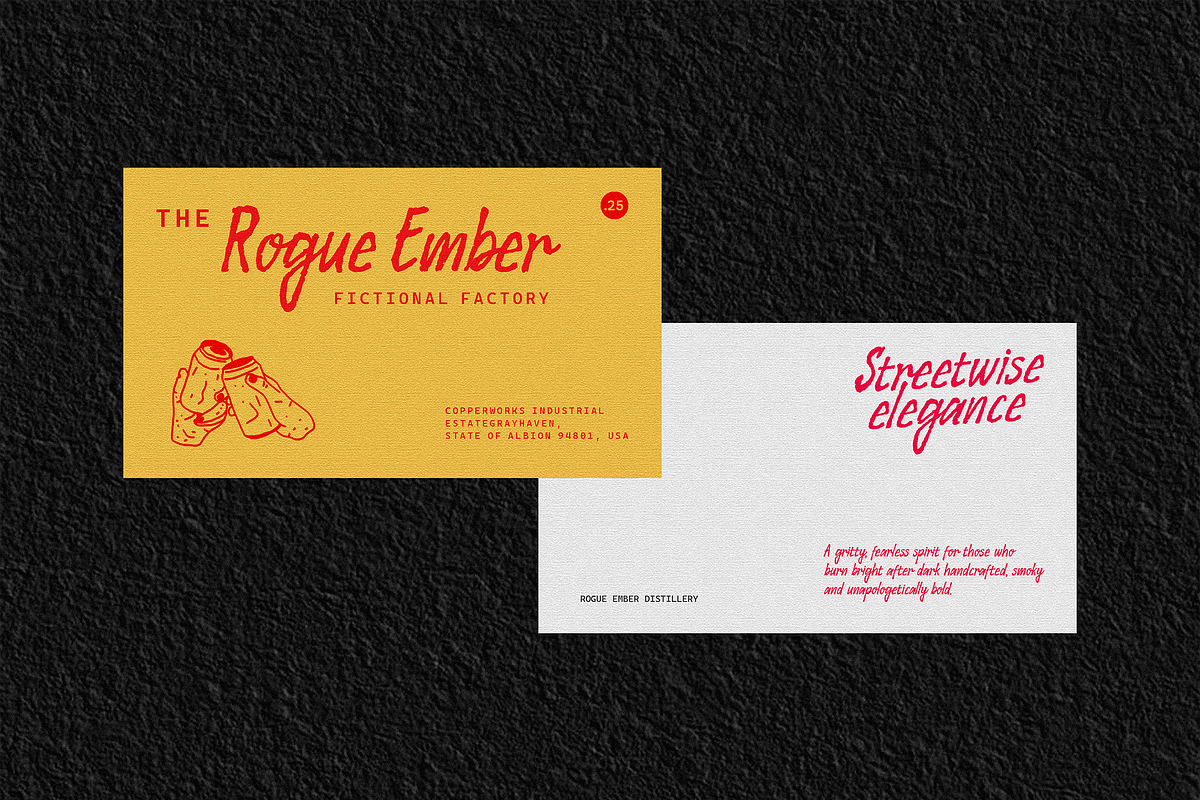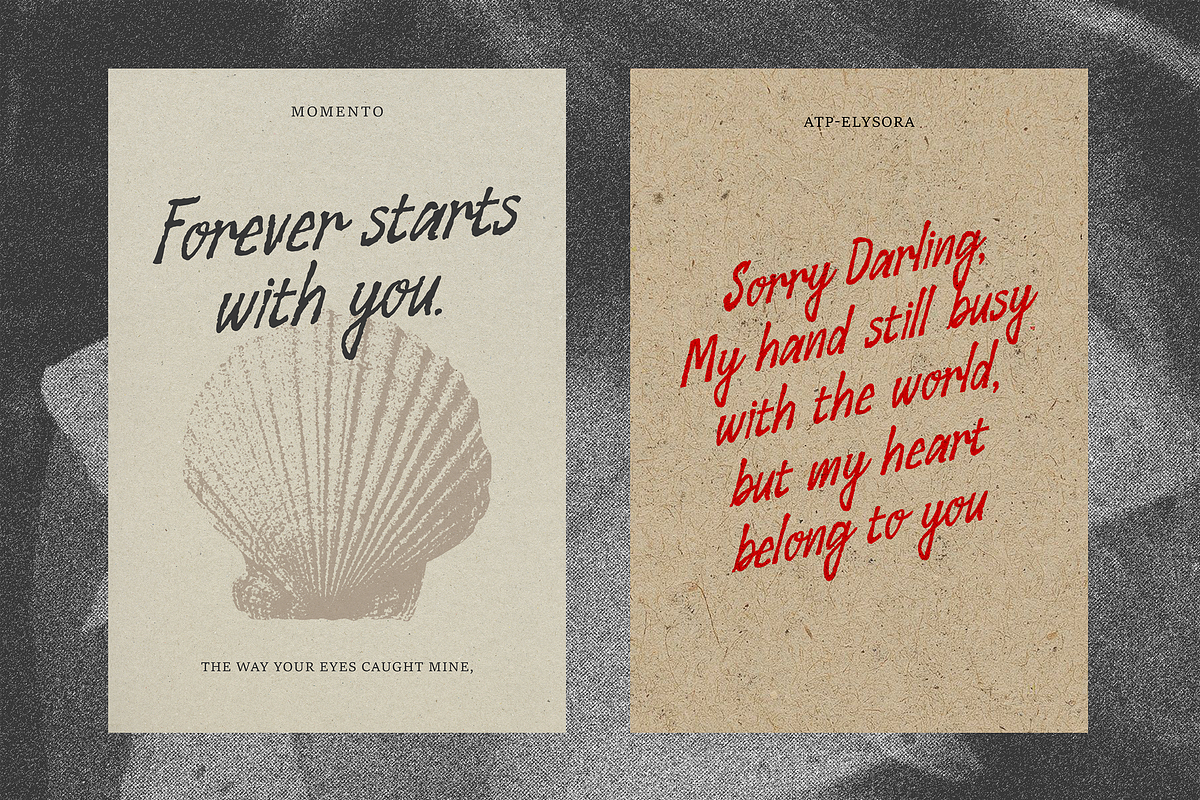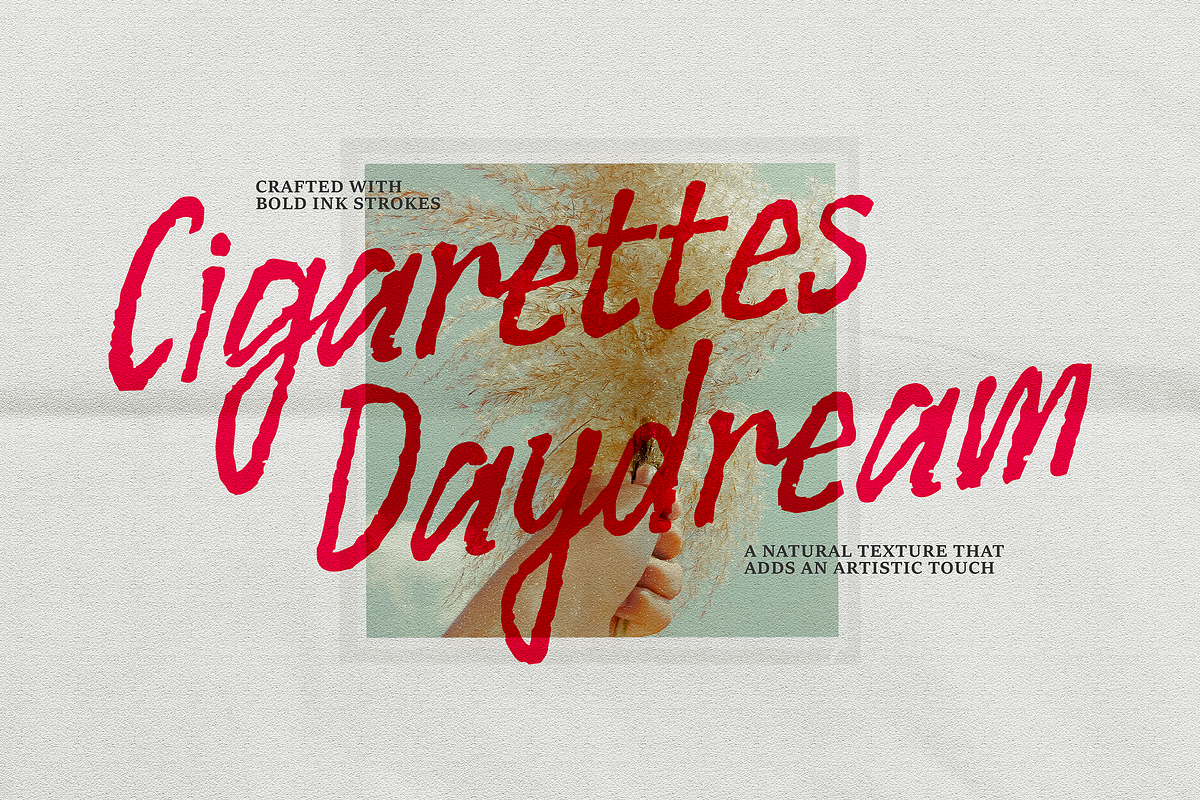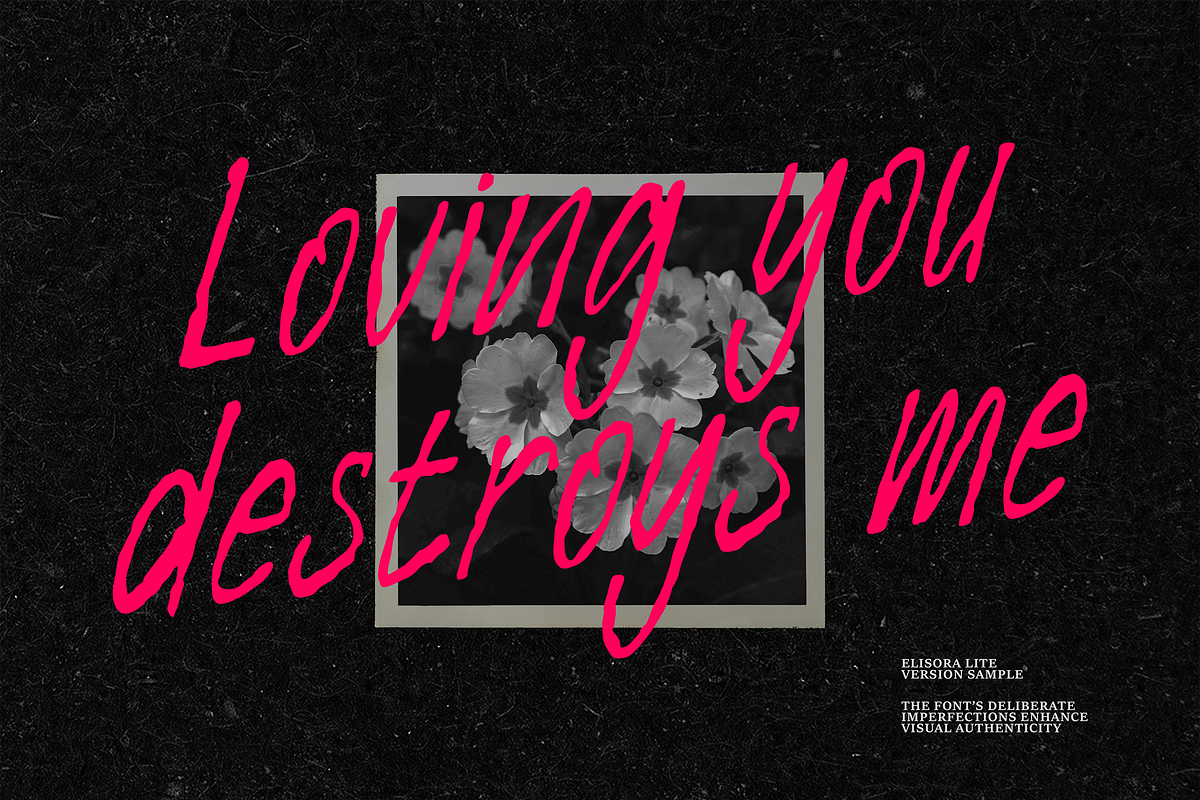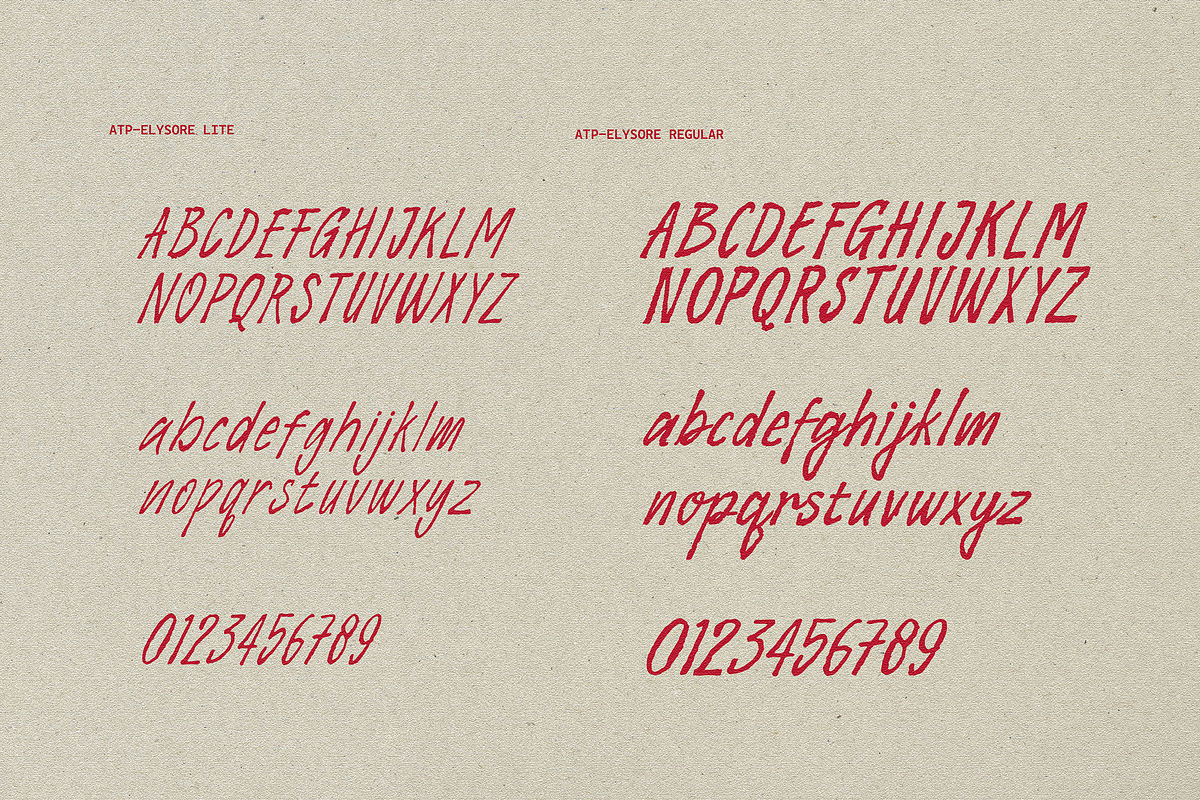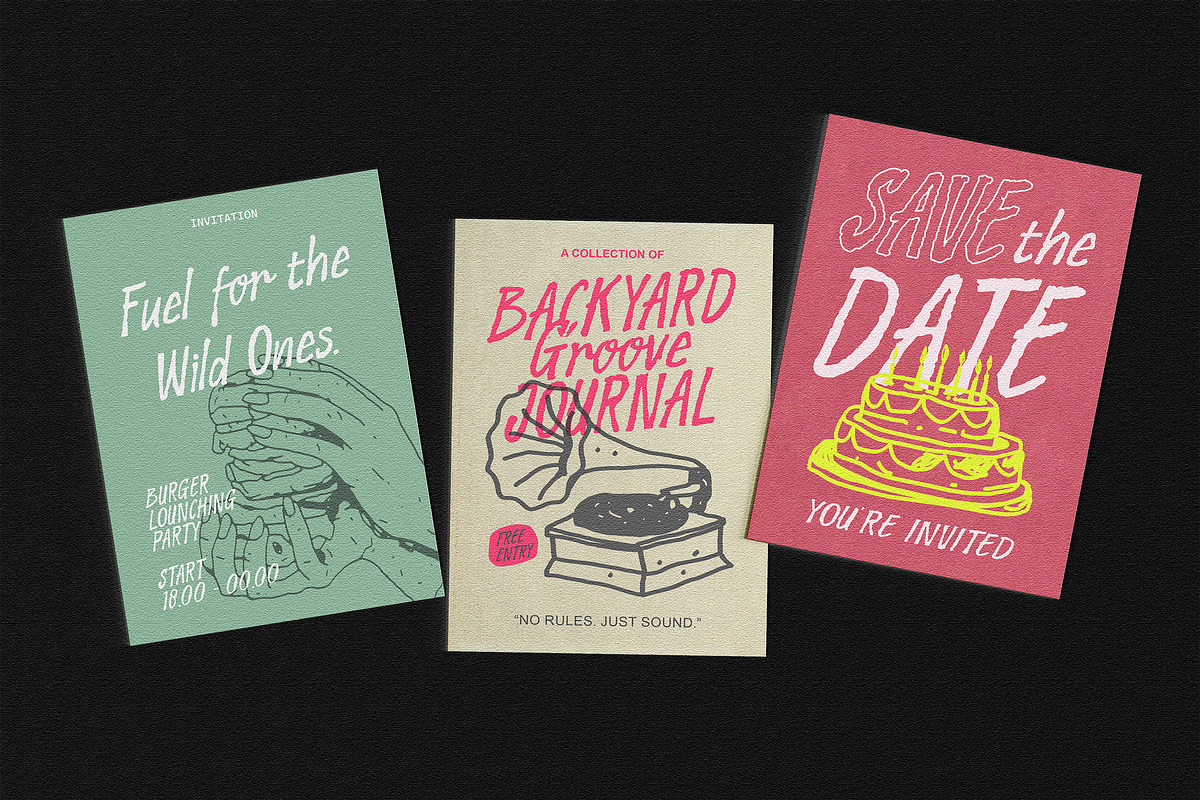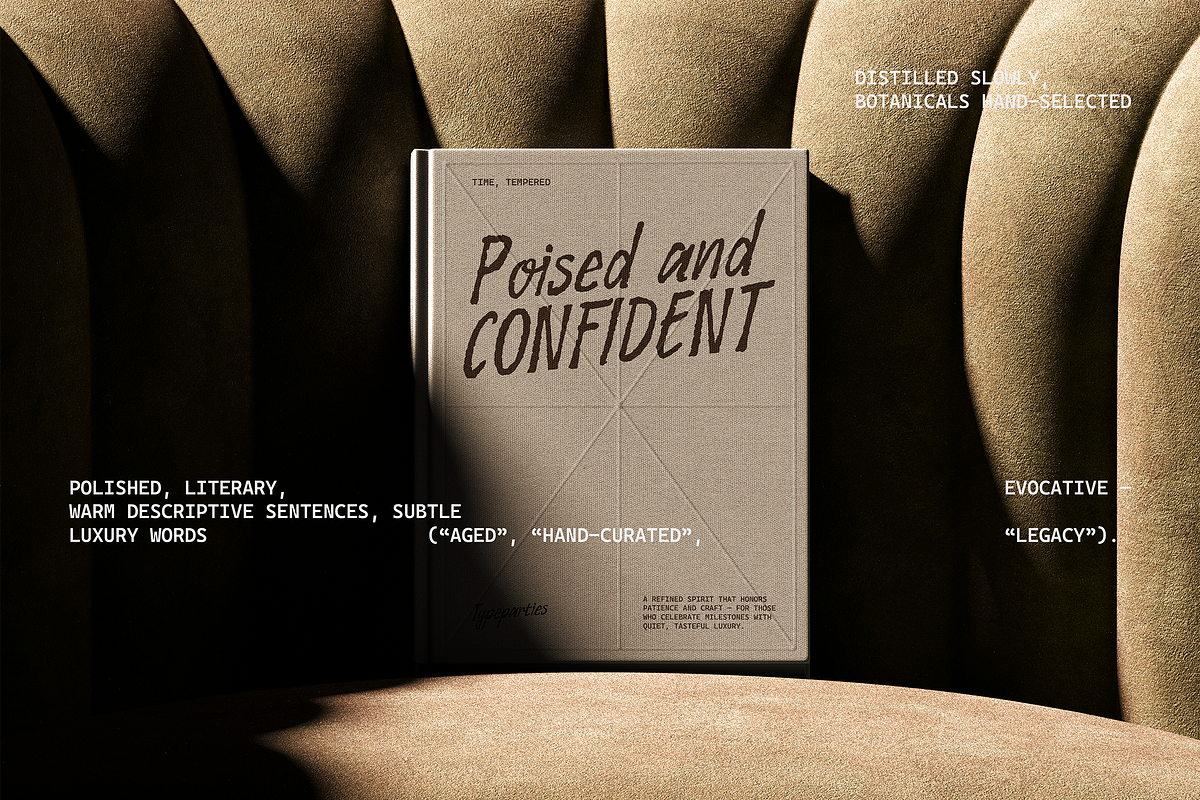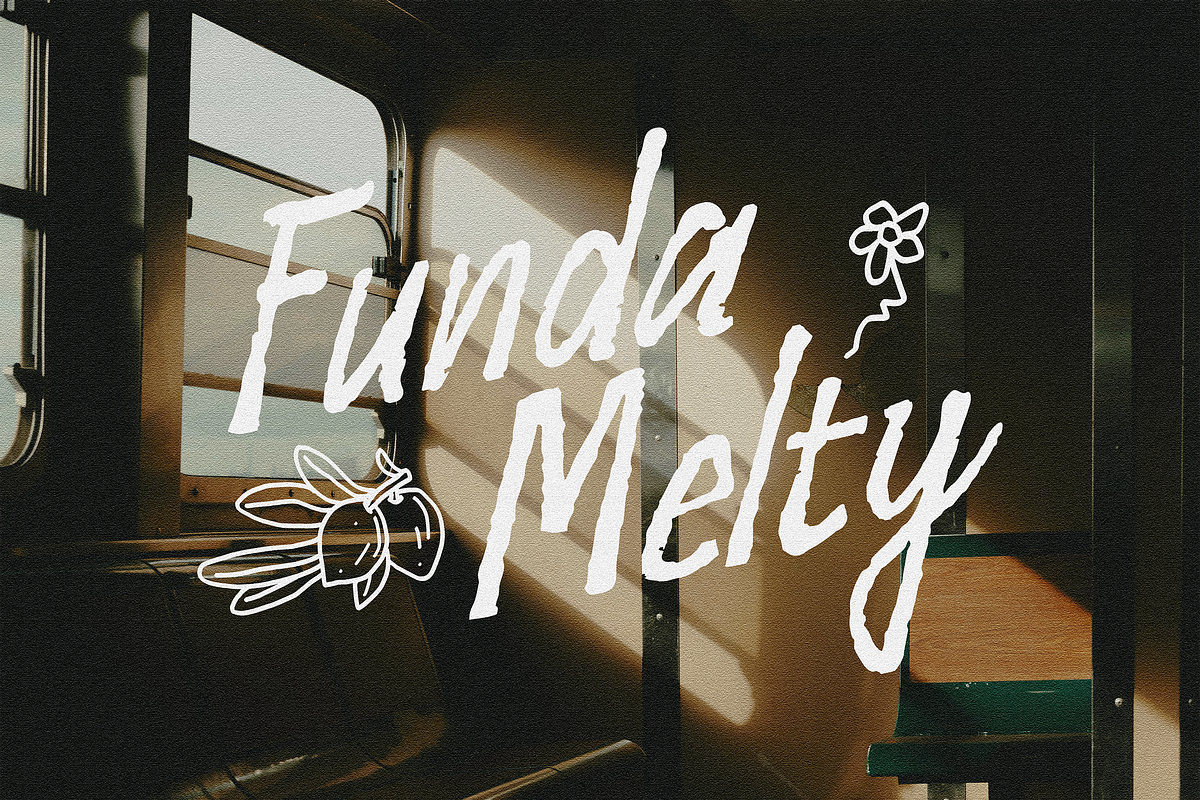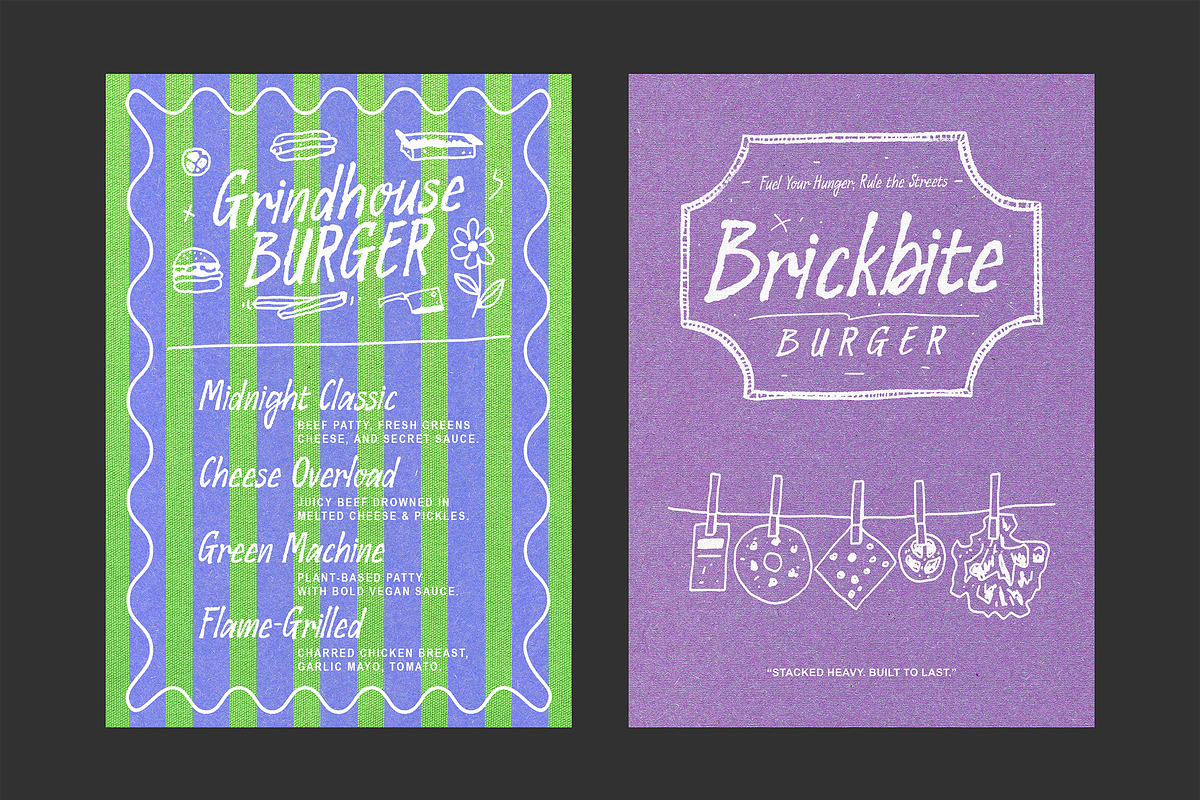
Elysora - Handwritten Script Font
Elysora is a handcrafted script font inspired by the textured flow of old handwritten manuscripts. Its main style features bold, ink-heavy strokes with expressive curves and natural imperfections, giving designs a raw, authentic character. Alongside it comes Elysora Lite, a refined variation with skinny lines—delicate, minimal, and perfect for contrast.
The combination of these two styles creates balance: the bold version makes a powerful statement, while the Lite version adds subtlety and elegance. This pairing allows designers to build dynamic compositions, whether for branding, vintage-inspired posters, editorial layouts, or digital projects that need both strength and finesse.